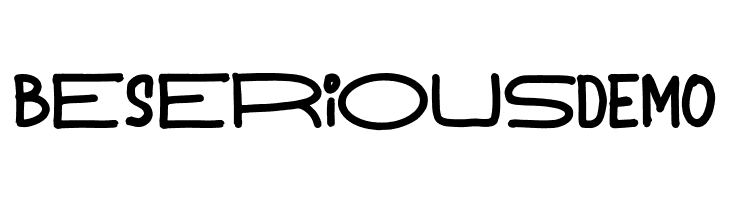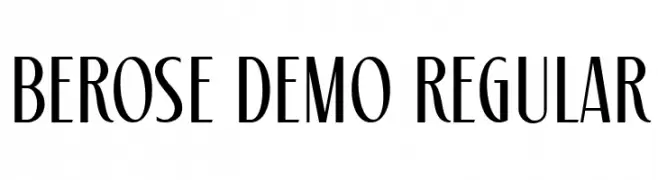
About the Uncategorized fonts
Uncategorized fonts give a clear voice to projects that want distinct personality and practical readability. Use them for headlines, logos, product pages, and web design where the tone must be instant and memorable. This category balances aesthetics with function: strong shapes, considered spacing, and rhythm that holds up on high density screens and print. Keep body text in a neutral companion face and let the category style lead the first impression. Good use cases include brand launches, landing pages, editorial hero sections, packaging, and motion graphics. For best results, set large sizes with generous line spacing and clear contrast. Pair with a restrained color palette and let white space support the typography. Avoid overusing effects; clarity and hierarchy make the design feel intentional and premium. Test at mobile sizes to ensure legibility and adjust tracking if letters feel tight. Combine with supportive icons or imagery, but keep type the main character so the voice stays consistent across channels. Explore related styles for complementary pairings and alternative moods: Hindi, Valentine, 50s, Art Deco. Mix and match for seasonal campaigns, special editions, or microbrands without losing cohesion.
A refined and elegant font with high contrast and slender, elongated characters.
A playful, hand-drawn font with bold, irregular strokes.
A bold, geometric font with strong, angular lines and a modern aesthetic.
A playful, bold font with a hand-drawn, whimsical style.
A playful and elegant script font with smooth, flowing curves.
A bold, handwritten font with a playful and friendly style.
A playful, bold font with rounded, bubble-like characters.
Elegant handwritten script font.
A playful, handwritten font with smooth, rounded edges and a casual style.
A lively, handwritten font with playful and irregular strokes.